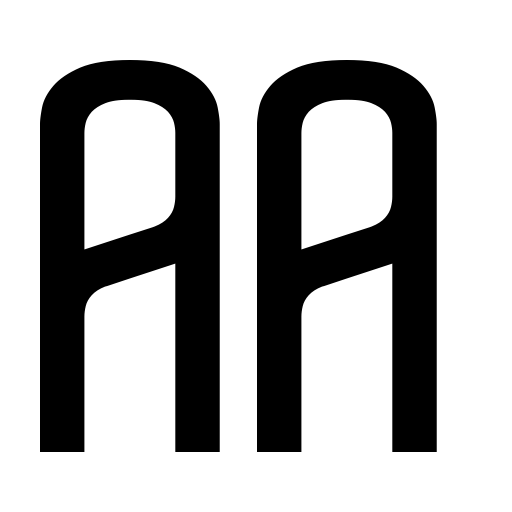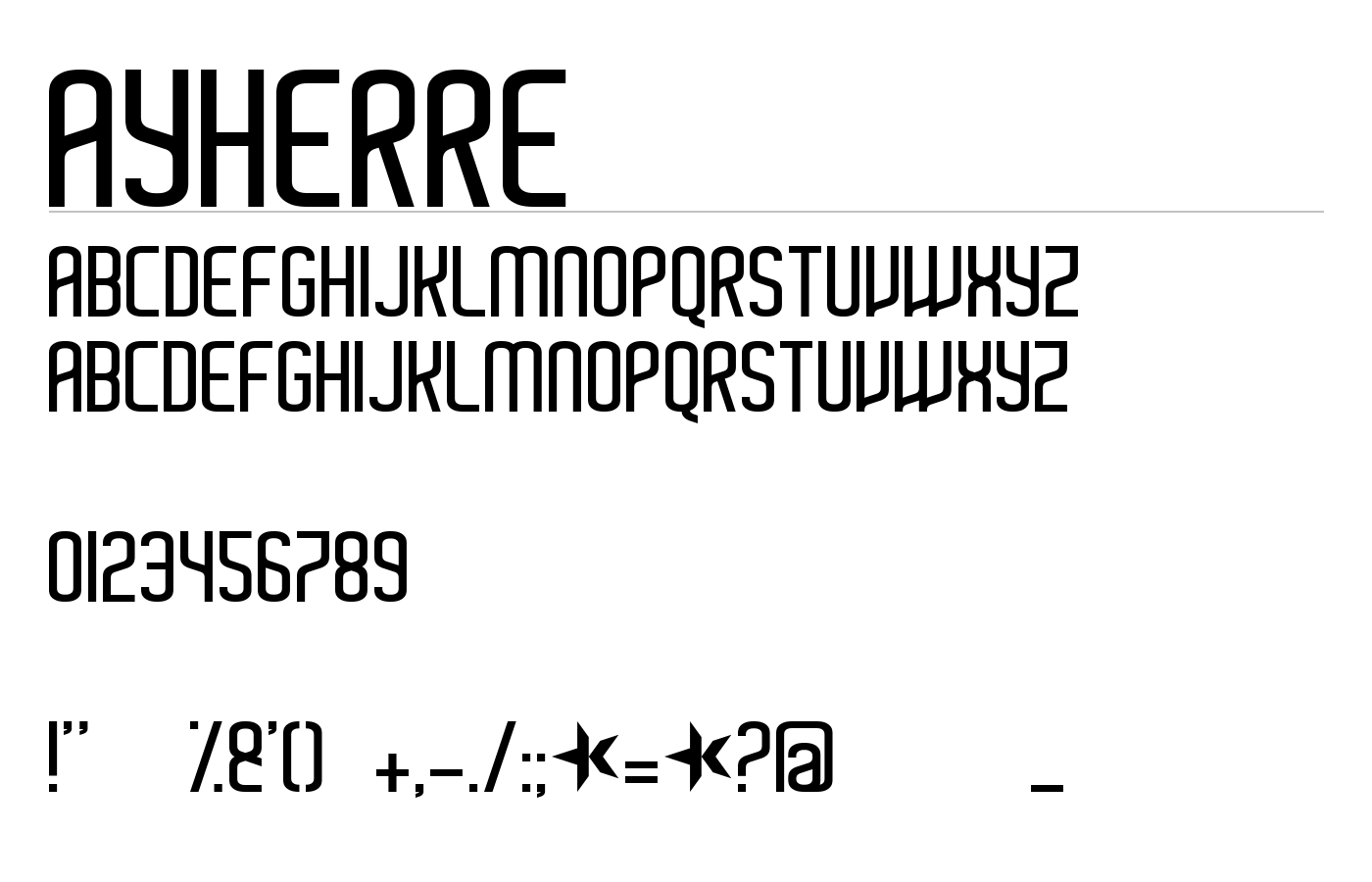
Ayherre is a condensed sans serif font with a modern, geometric style characterized by tall, narrow letterforms and a consistent stroke width. Its clean, slightly futuristic appearance makes it well-suited for attention-grabbing headlines, branding, and editorial designs that seek a contemporary and minimalist feel. This font works best in display settings where its unique letter shapes and compact structure can stand out clearly.
Ayherre Font